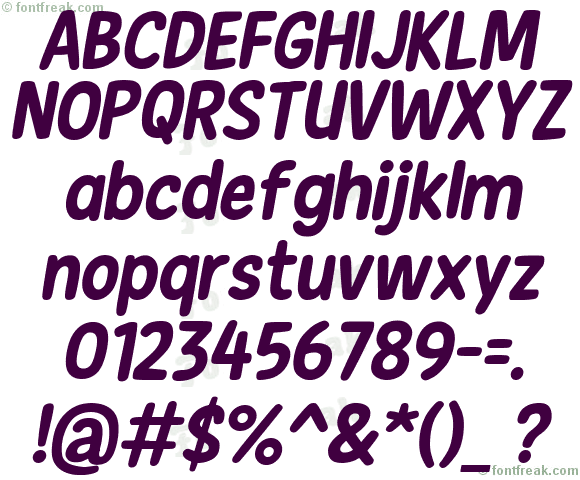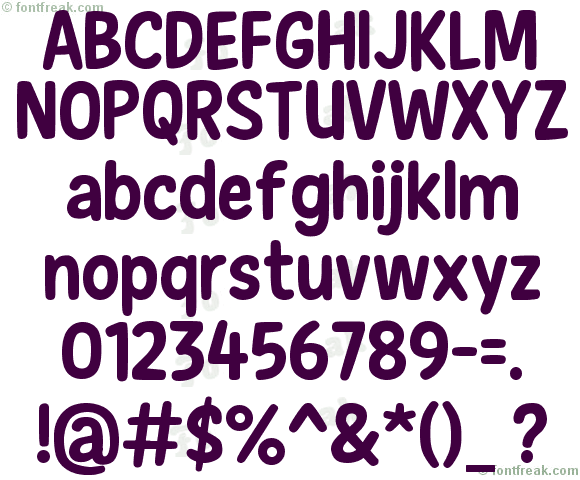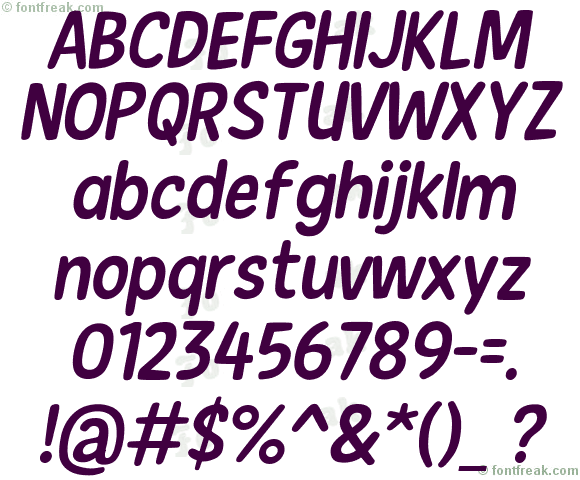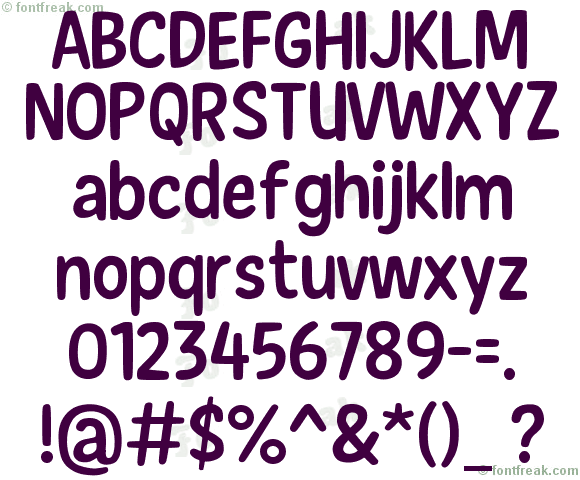
New Era Casual Bold
New Era Casual Regular
New Era Casual Bold Italic
New Era Casual Italic
About New Era Casual Bold
The New Era Casual Bold font by Jayvee Enaguas is a distinctive display typeface that falls into the sans-serif category. This font features a playful and robust design, characterized by its bold stroke weight and rounded edges, which convey a sense of friendliness and approachability. The spacing between characters is generous, ensuring legibility while maintaining a casual aesthetic. The font's overall appearance is modern, making it a versatile choice for various design projects.
New Era Casual Bold is particularly well-suited for a range of applications. It excels in creating eye-catching movie posters, where its boldness can effectively draw attention to titles and key information. Additionally, this font is a fantastic option for restaurant menus, where its clarity and casual vibe can enhance the dining experience. It can also be used in branding materials for small businesses aiming for a contemporary and friendly image. Whether crafting invitations for casual events or designing social media graphics, the New Era Casual Bold font can add a unique touch that resonates with audiences.
In conclusion, the New Era Casual Bold font stands out for its blend of modernity and warmth, making it an ideal choice for anyone looking to convey a friendly yet professional tone. With the New Era Casual Bold font free download, you can elevate your design projects and engage your audience effectively.